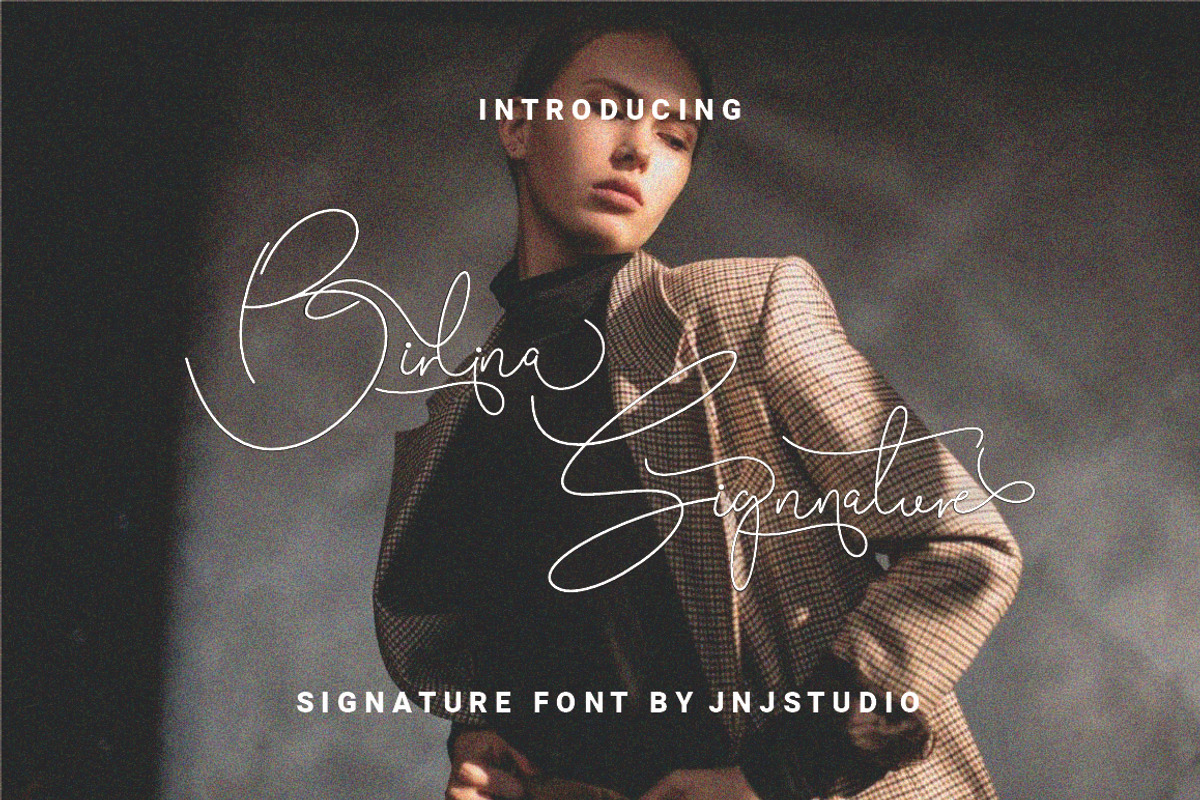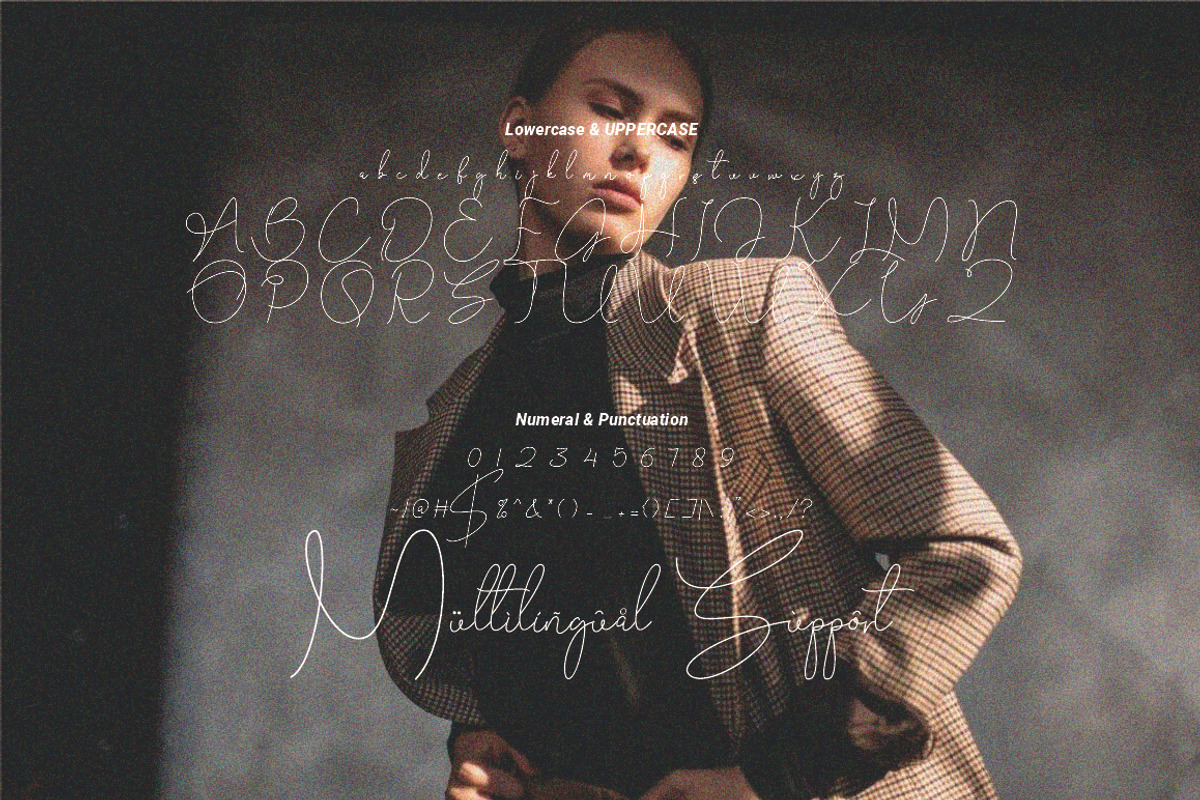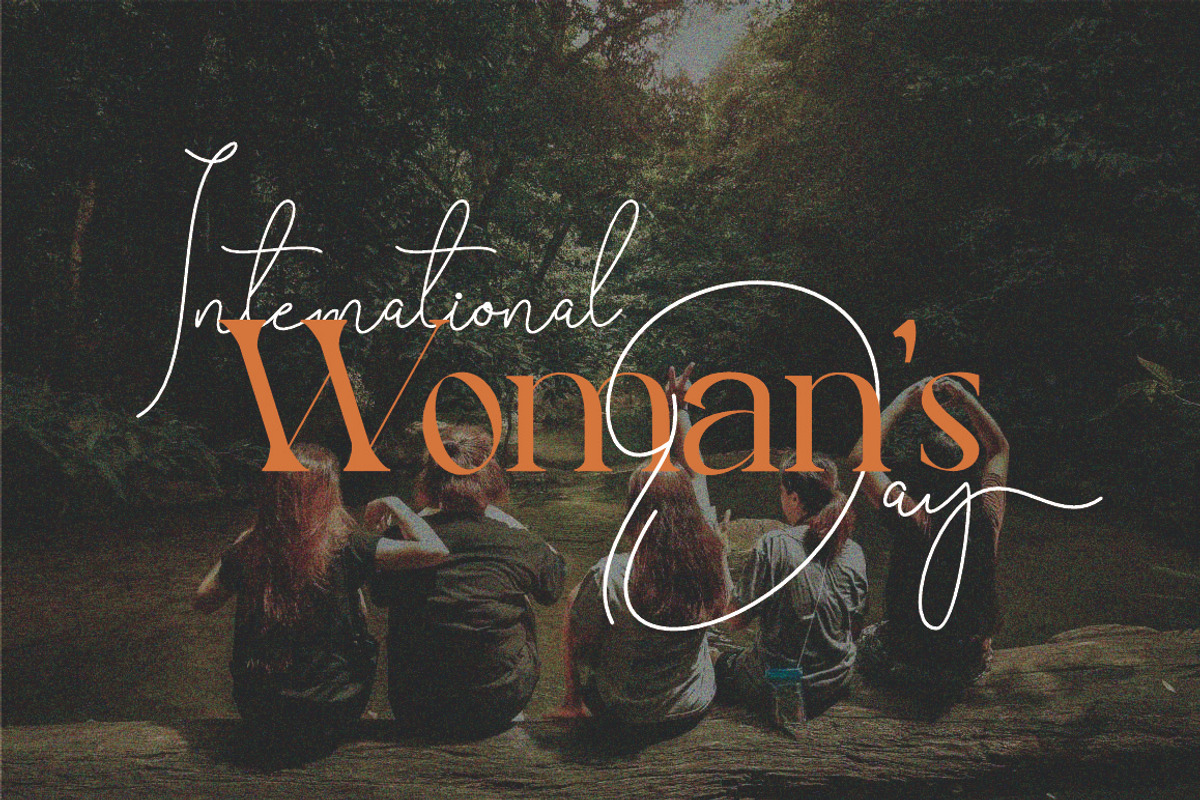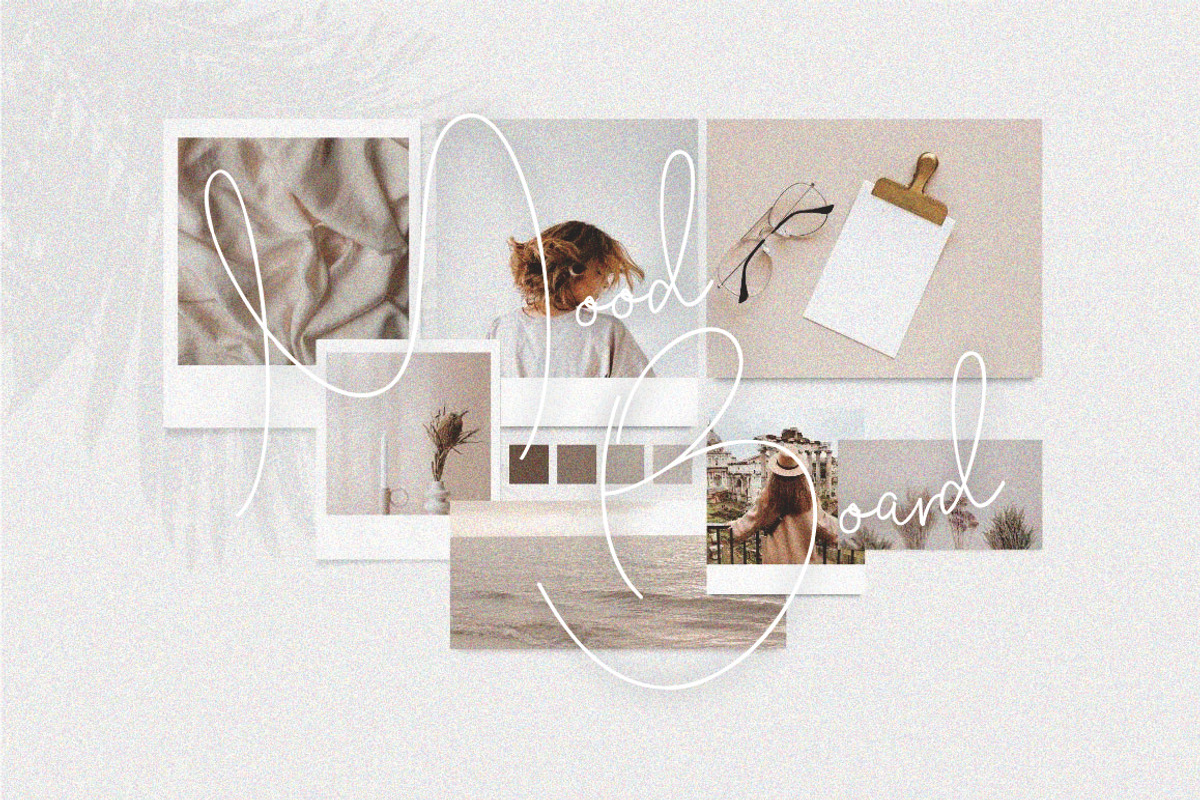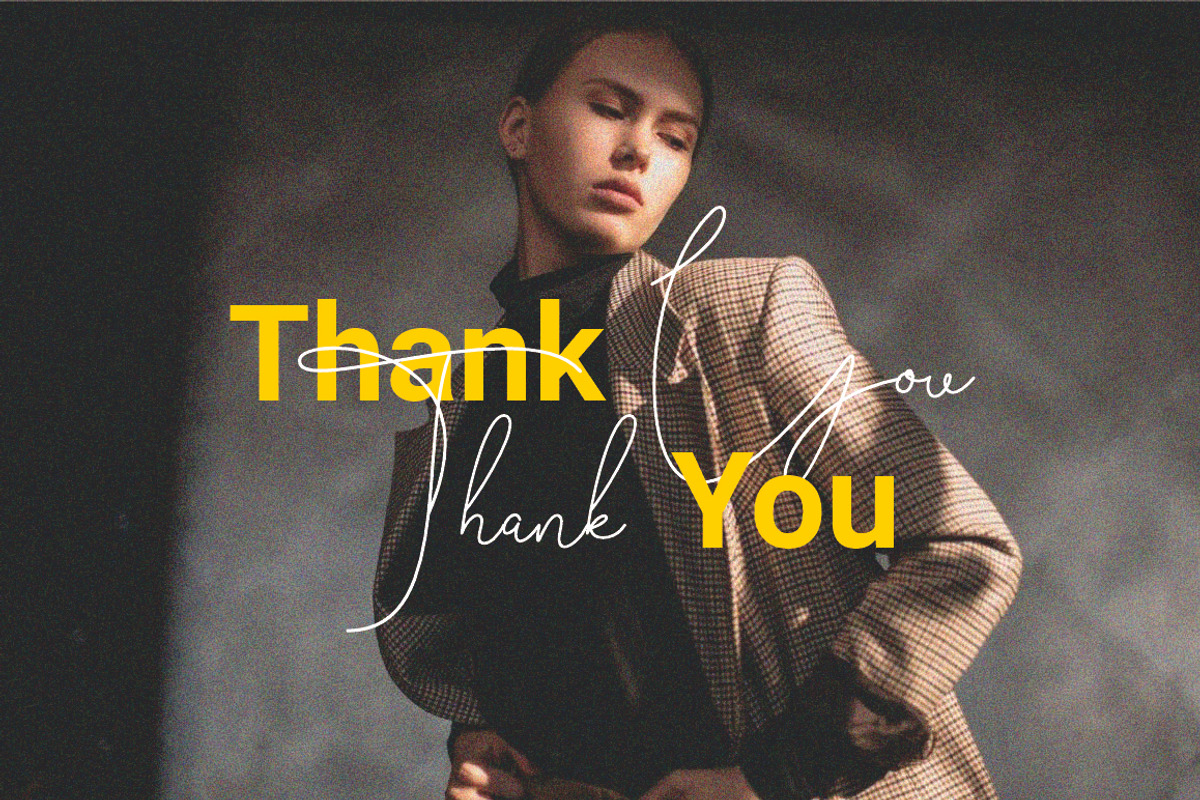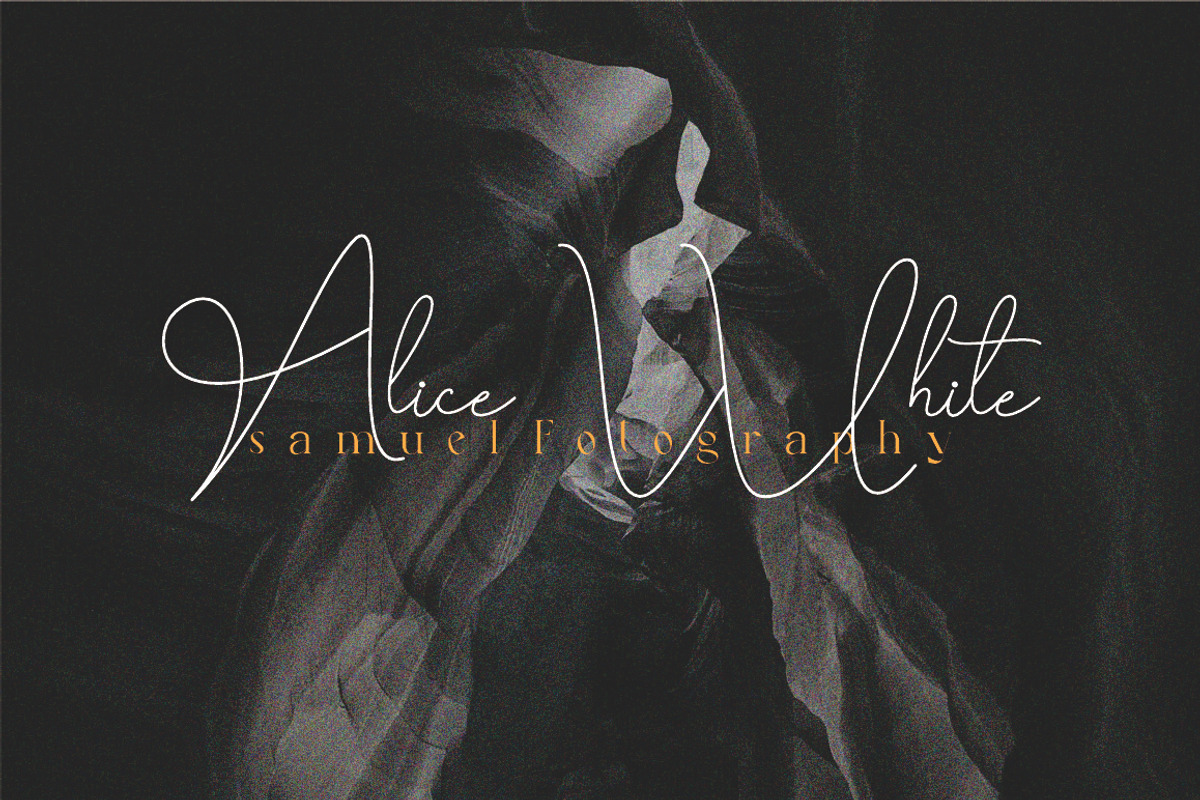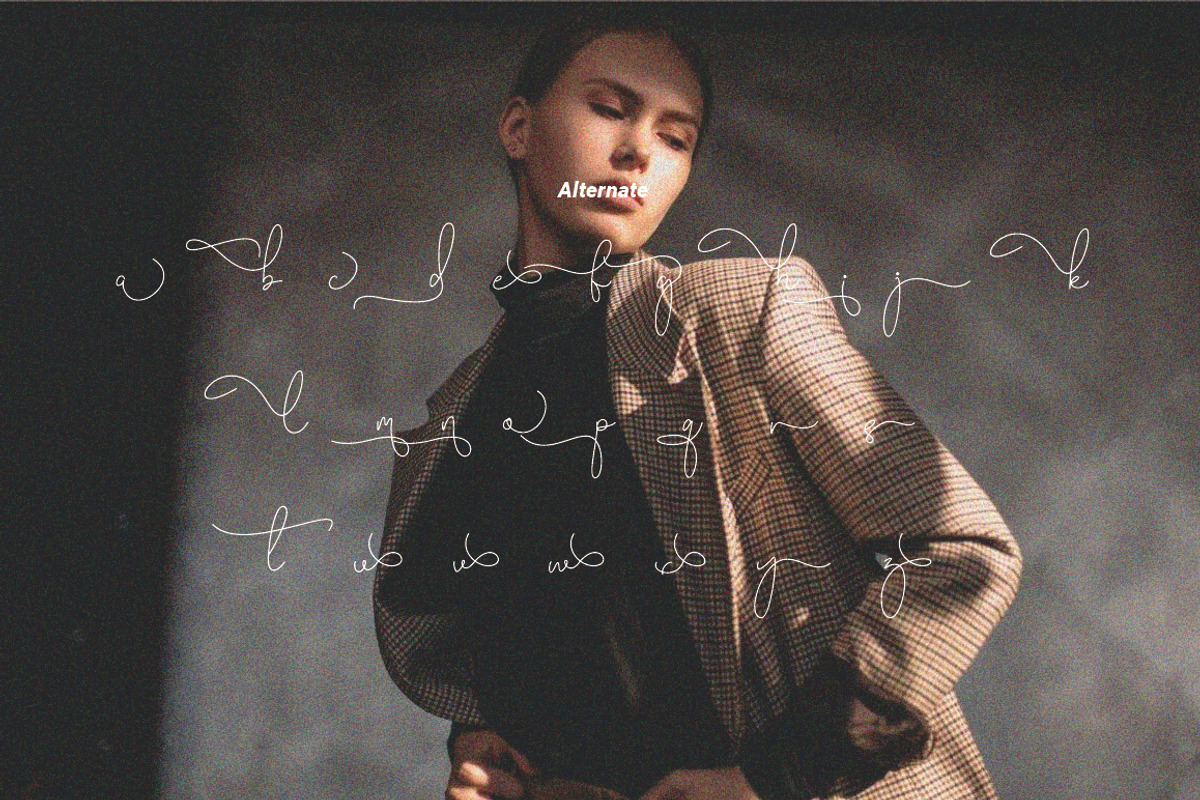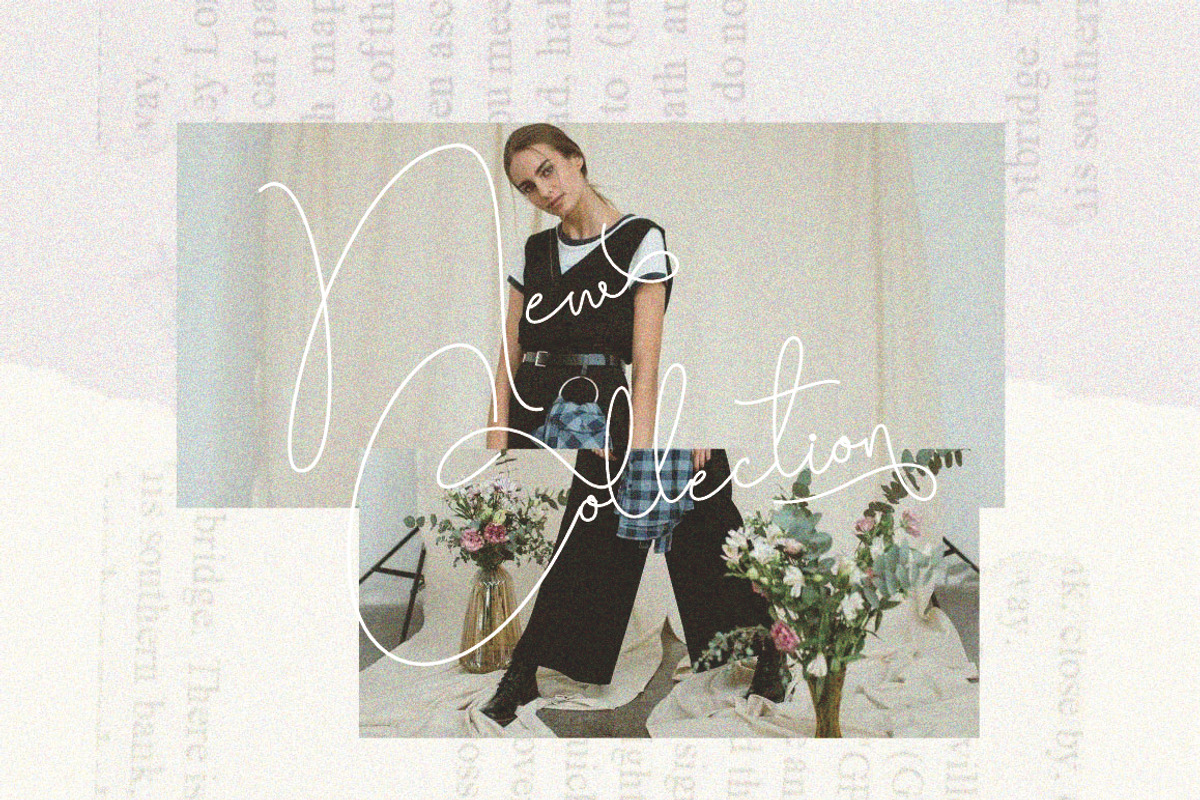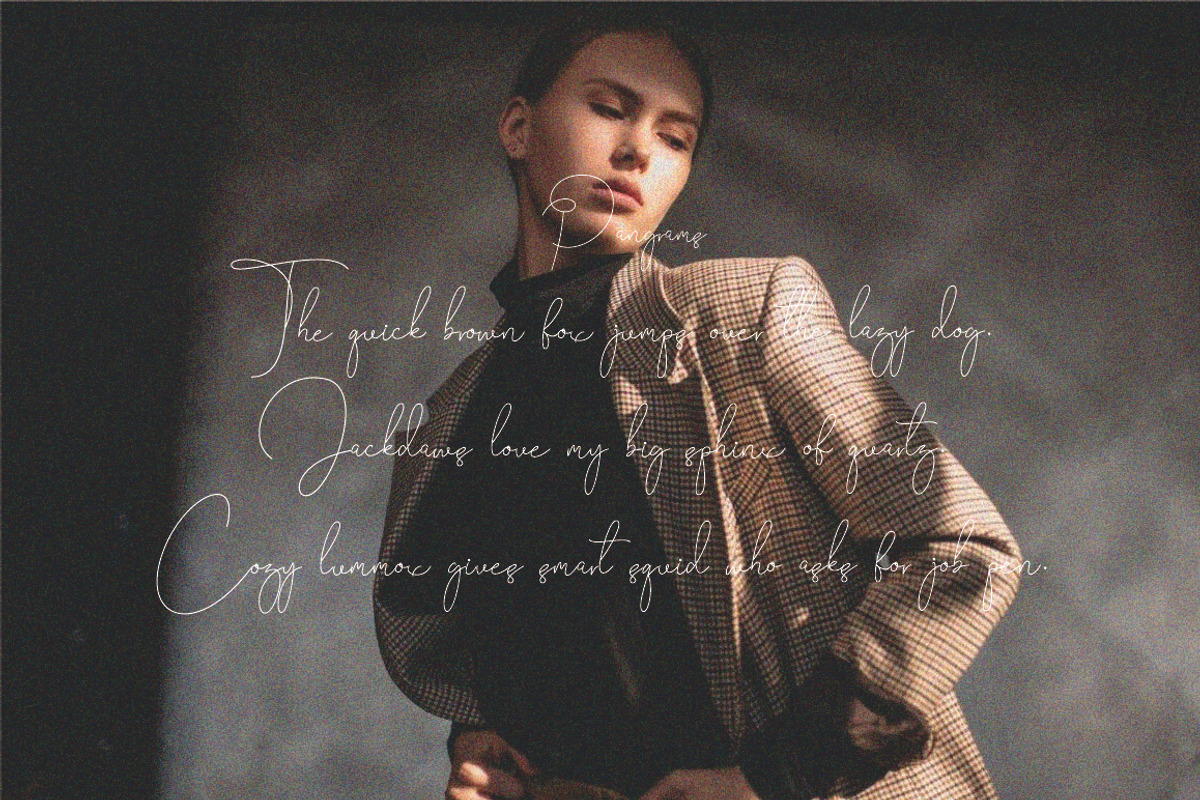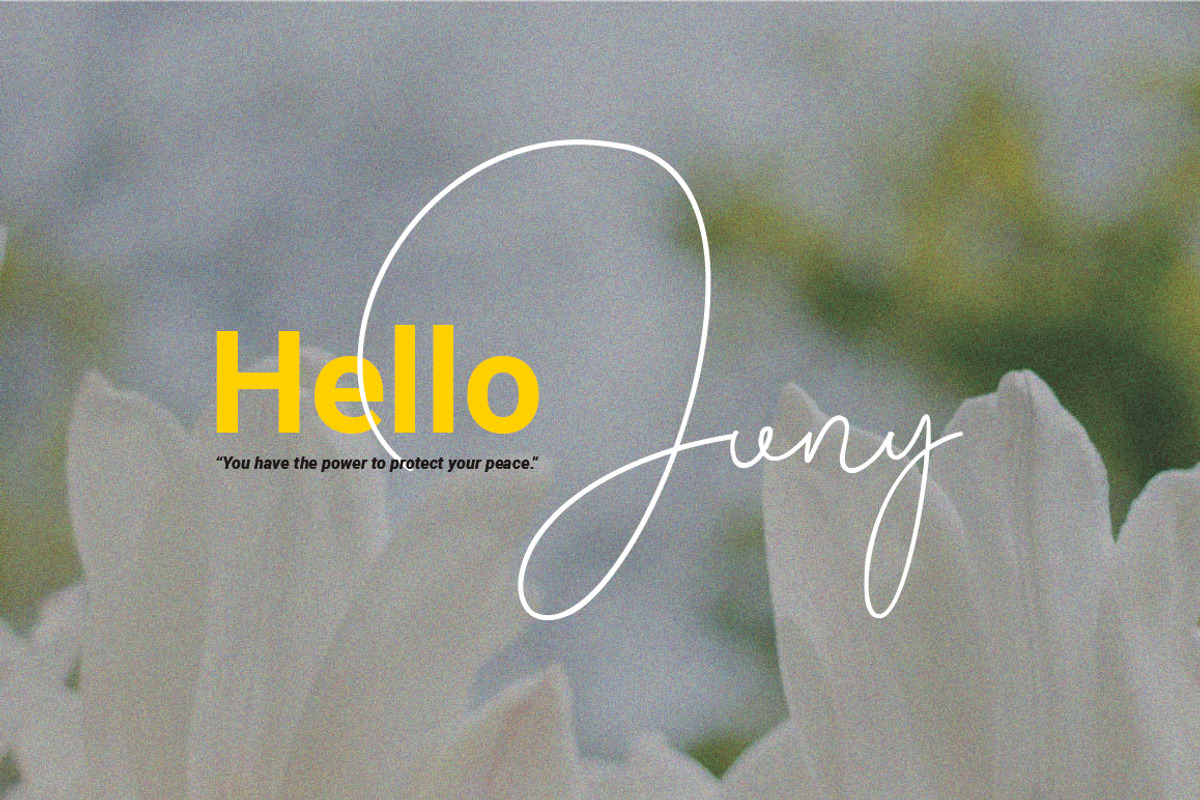
Birlina Signature
Birlina Signature is an elegant and stylish script font designed to bring a touch of sophistication to your projects. With its fluid strokes and natural handwritten feel, this font perfectly captures the essence of a personal signature.
Ideal for branding, logos, invitations, and high-end designs, Birlina Signature features smooth curves, graceful swashes, and a refined balance between thick and thin strokes. The font exudes a sense of luxury and exclusivity, making it a perfect choice for those seeking a modern yet timeless handwritten aesthetic.
Enhance your designs with the charm and authenticity of Birlina Signature, a font that embodies elegance, creativity, and professionalism in every stroke.